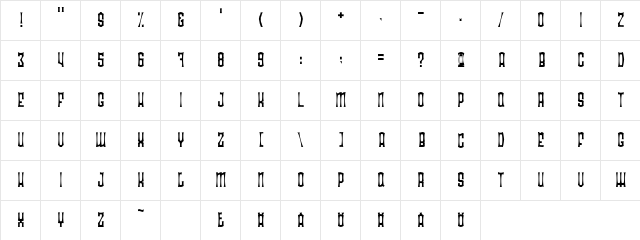
Radonator Anorexia Normal
Design Context for Radonator Anorexia Typeface
Radonator Anorexia is a composed and adaptable typeface that performs quietly and consistently across a wide range of design contexts.